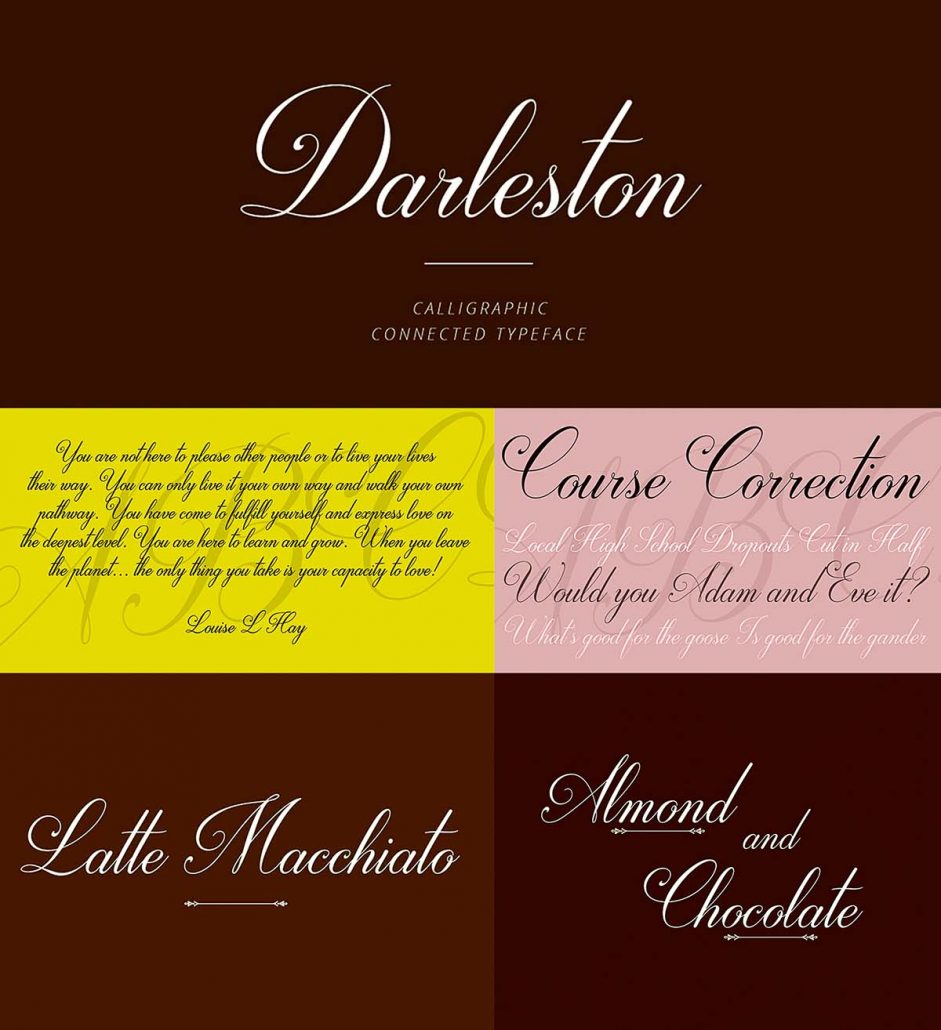
Here youll find the best cool free mac fonts android fonts for your cell phone or tablet or windows fonts. These handwritten fonts are drawn using any kind of writing instrument like pen, pencil, felt marker, brush, etc. Browse and download handwriting fonts and generate images from custom text with handwriting fonts.
This Font Is Perfect For Logos, Quotes, Invitations, Handwritten Quotes, Logos, Signature, Album Cover, Merchandise, Social Media Posts, Displays, And More.